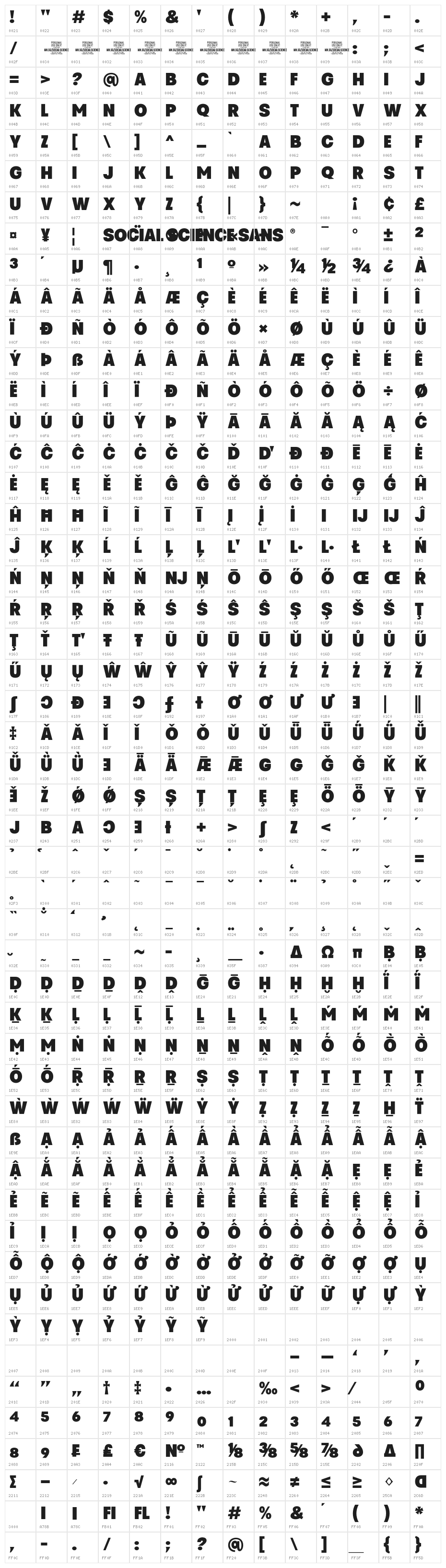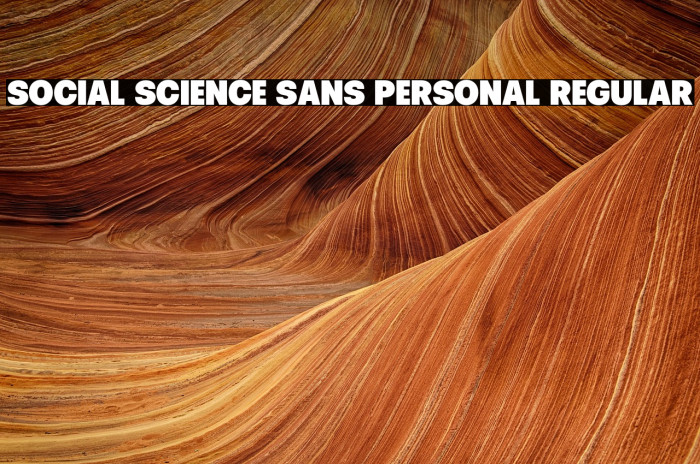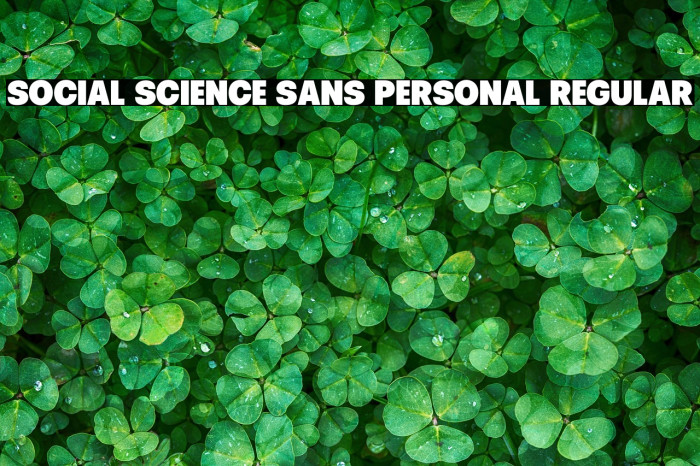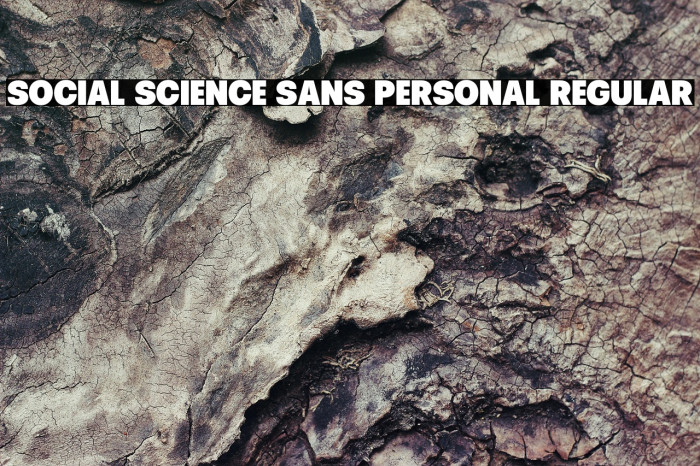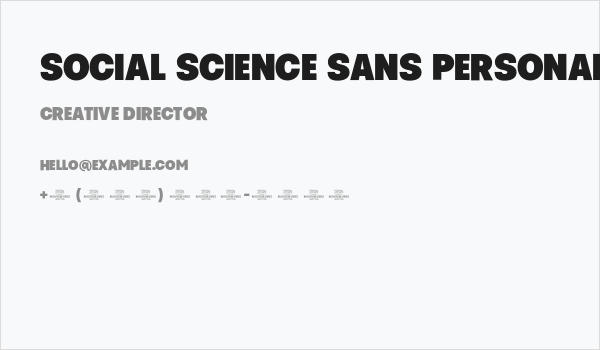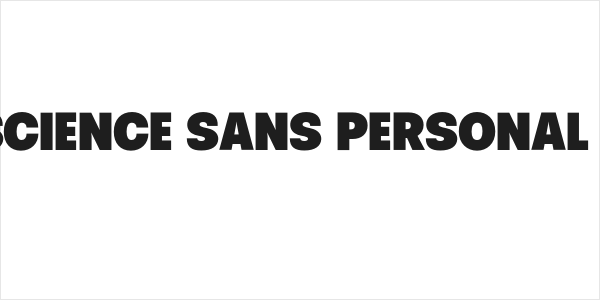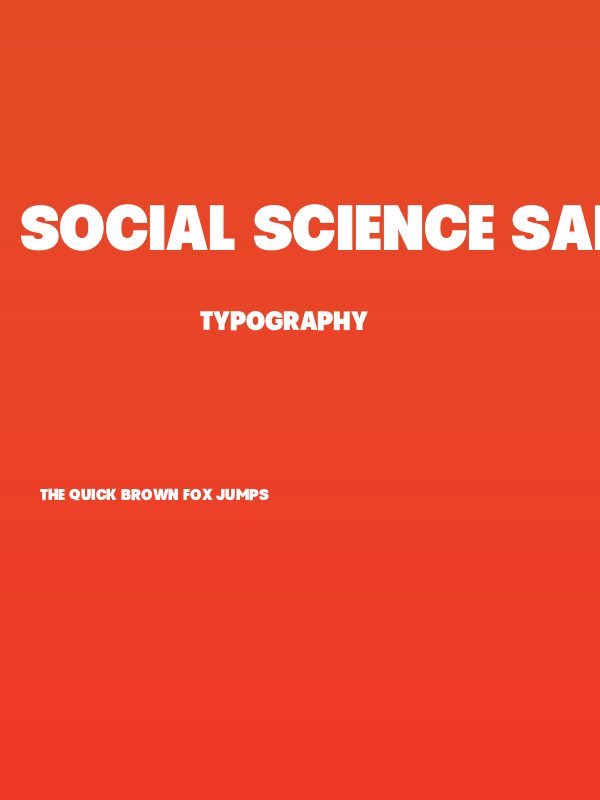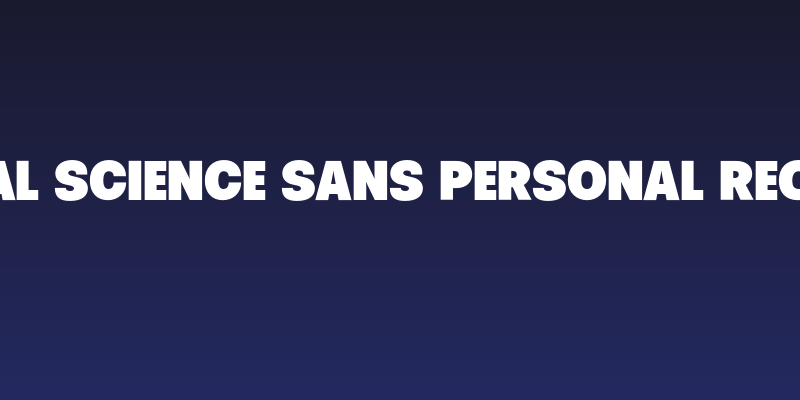
Social Science Sans PERSONAL Regular Font
Social Science Sans PERSONAL Regular Description
This font is characterized by its bold and impactful appearance, featuring thick, uniform strokes that convey a sense of strength and modernity. The uppercase letters are prominent and well-defined, making them ideal for attention-grabbing headlines. The font maintains a consistent width across all characters, ensuring a balanced and cohesive look. The numerals and special characters are equally bold, complementing the overall design. This typeface is versatile, suitable for various design projects that require a strong visual presence.